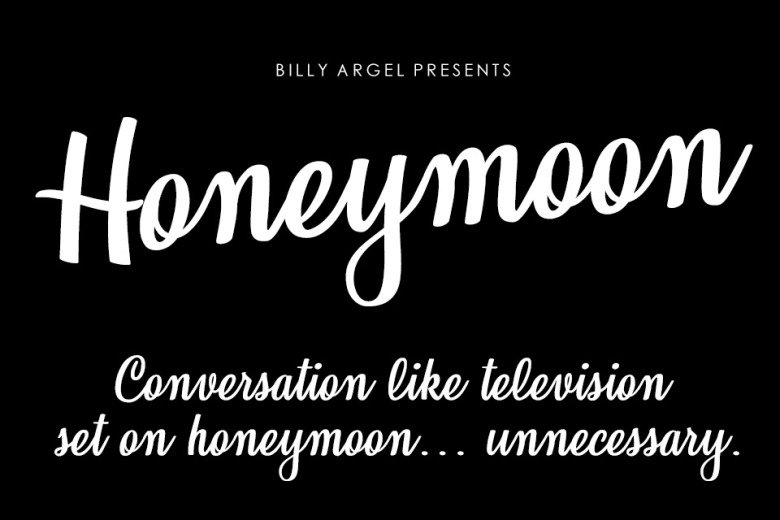
Honeymoon Font
Honeymoon is a high quality Handwritten font that is designed by Billy Argel Fonts and is available for free download and personal use. The free version provides all uppercase and lowercase letters and a few special characters too.
Honeymoon Handwritten Font